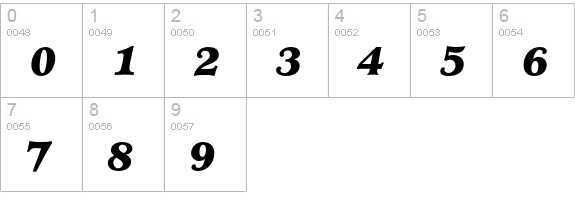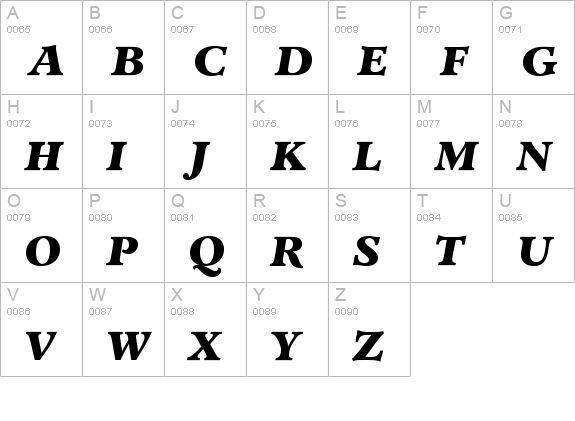
Minister Black Italic Font Details
Minister Black Italic is a maximum-weight, dramatic, italic variant in the Minister typeface family \xE2\x80\x94 well suited to maximum-impact headlines, posters, and packaging.
Minister Black Italic font is a sophisticated and elegant typeface that exudes a sense of authority and refinement. Its sleek and stylish design makes it perfect for conveying a sense of professionalism and sophistication in any project. The italicized form adds a touch of flair and adds a dynamic element to your text. What sets Minister Black Italic font apart is not just its aesthetic appeal, but also the fact that it is available for free download at FontsMarket.com. This means that you can easily access this high-quality font without any cost, making it a valuable resource for designers, writers, and anyone looking to elevate their projects with a touch of class. With its timeless appeal and versatile usage, Minister Black Italic font is a must-have in your font collection. Download it for free today and add a touch of elegance to your designs.